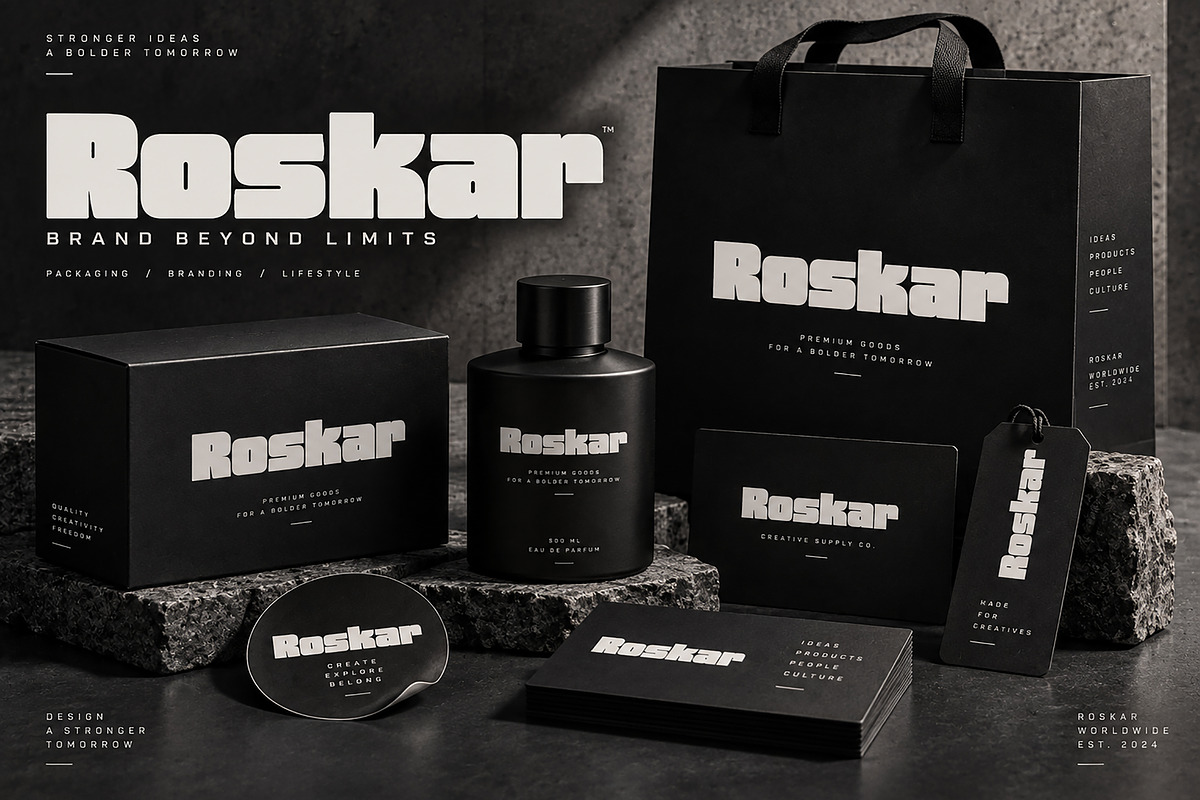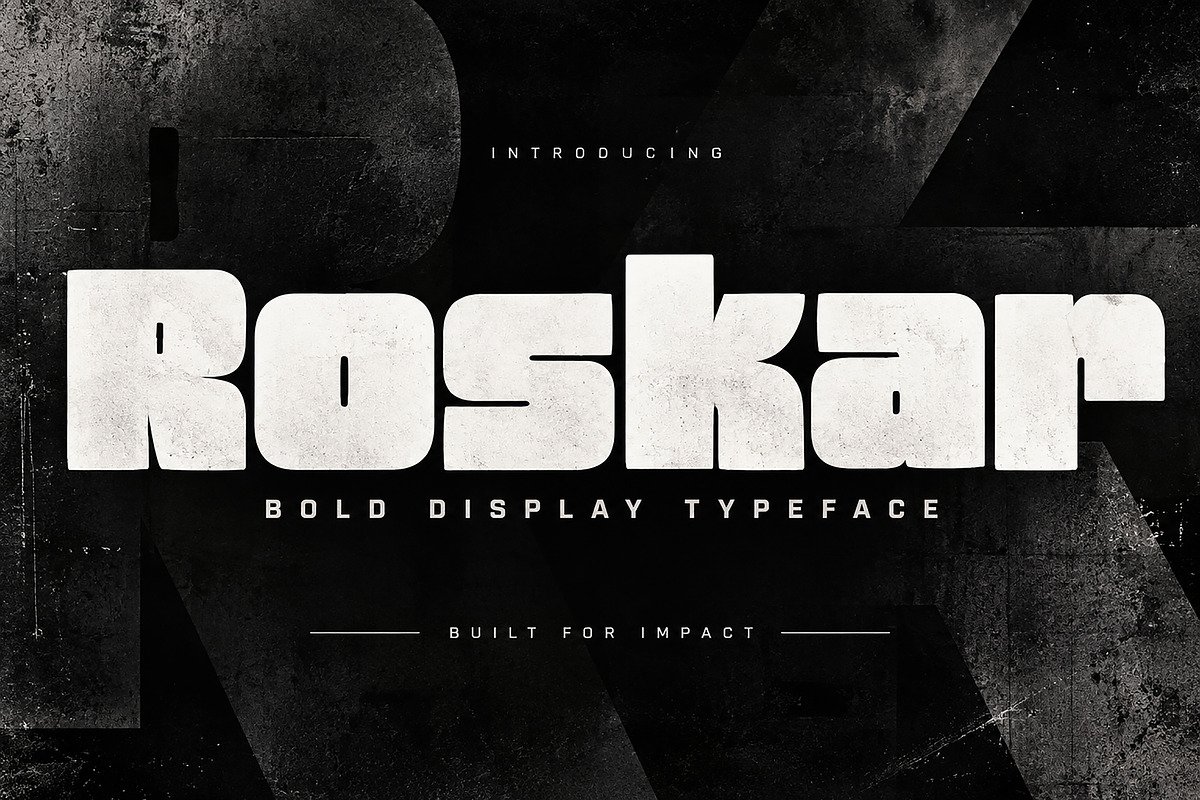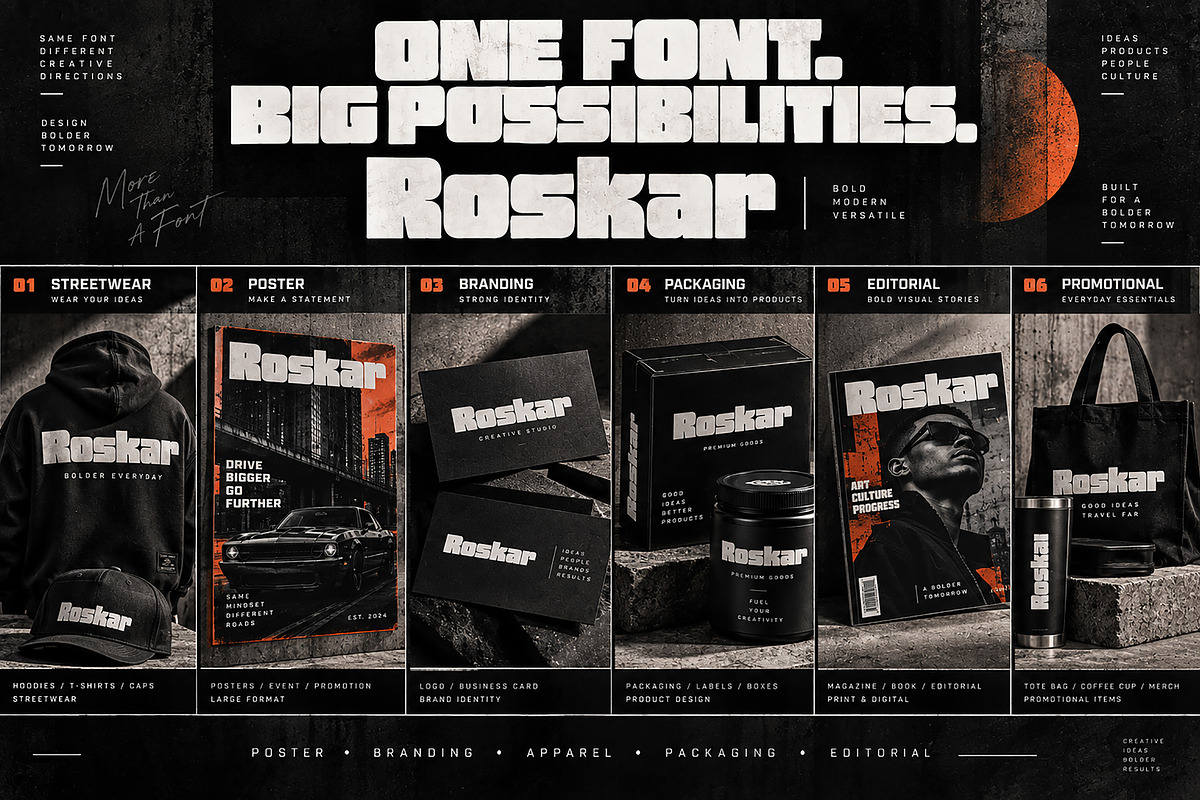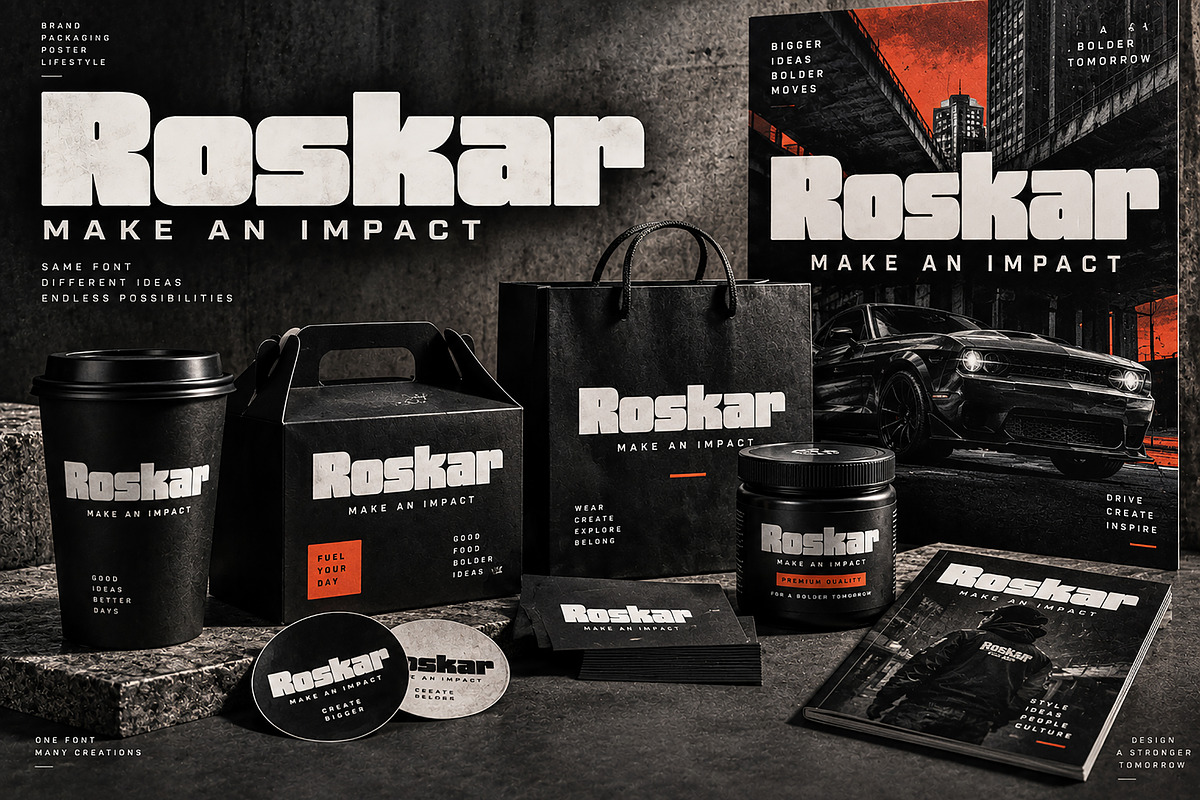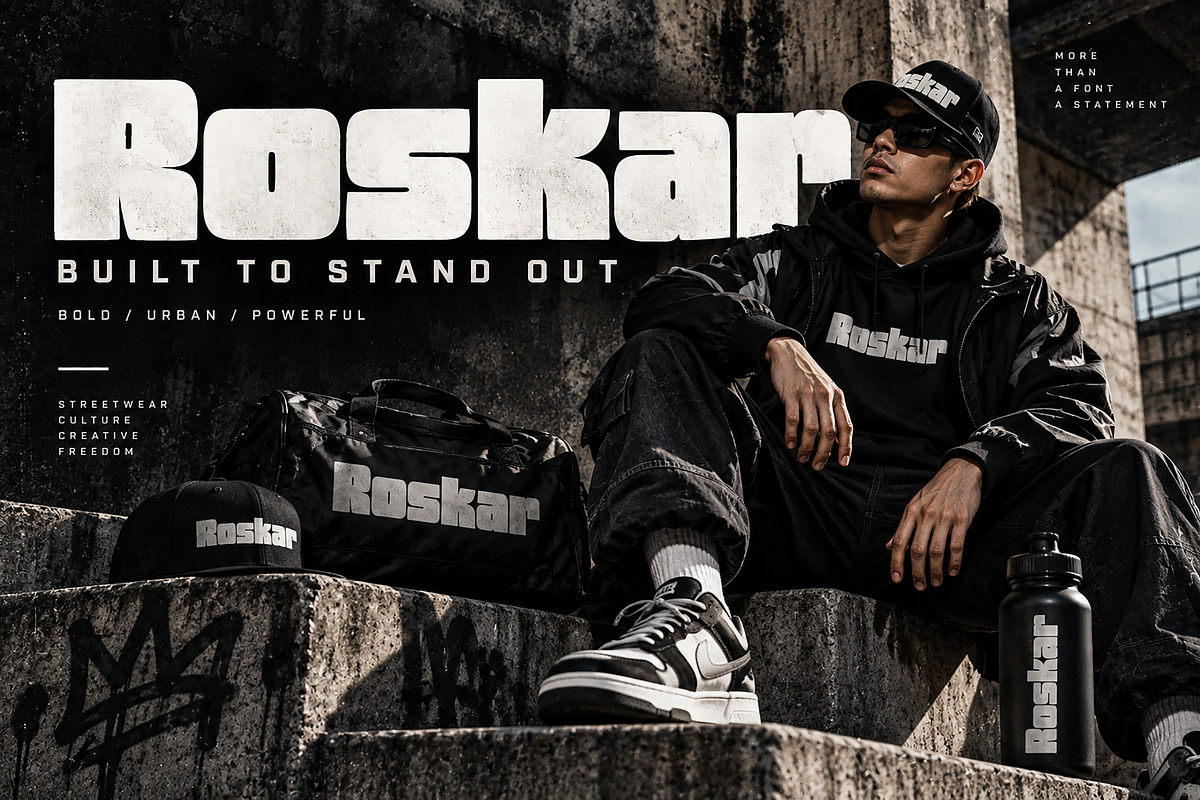
Roskar
Roskar is a bold, heavy display typeface designed to make a powerful visual impact. With its strong, compact letterforms and distinctive block-style appearance, Roskar brings an energetic and contemporary personality to headlines, branding, posters, apparel, packaging, and advertising projects.
Its bold silhouette works especially well when you need typography that immediately captures attention. Use Roskar for streetwear graphics, logo concepts, promotional posters, product packaging, magazine covers, merchandise, labels, social media graphics, and other high-impact creative projects.
Logo & Brand Identity
Streetwear & Apparel Design
Posters & Advertising
Labels & Stickers
Magazine & Editorial Design
T-Shirts & Hoodies
Merchandise & Promotional Products
Headlines & Display Typography
Bold and heavy display style
Strong, compact letterforms
Eye-catching visual presence
Suitable for both digital and print projects
Great for large headlines and branding
Designed for modern commercial applications